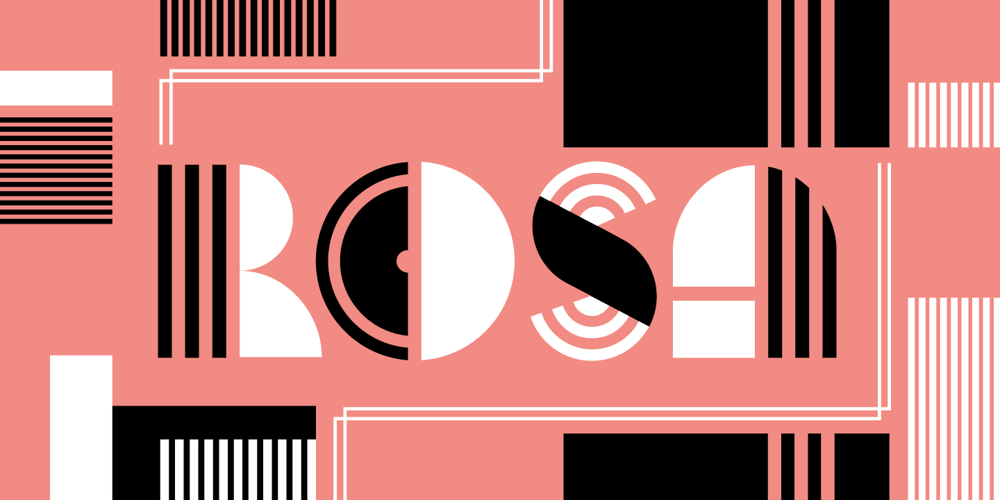
Rosa Font Family was designed by Daniel Pelavin and published by Pelavin Fonts. Rosa contains 1 styles and family package options. Inspired by Art Deco packaging, Rosa fits comfortably into that classic genre. It’s namesake in the collection of La Sociéte Parisienne de Savons is described thusly: In mythological legend, Chloris, the goddess of Spring flowers transformed the body of a nymph into the first Rose. Aphrodite gave her beauty. Dionysus, the god of wine gave her a sweet fragrance and the Three Graces, charm, joy and radiance. Equally compatible with Machine Age, Streamline, Moderne and even Memphis design motifs, it presents the unique option of serving as both the typographic and decorative components of a design. Use Rosa to evoke a sense of elegance, high style and historical context.